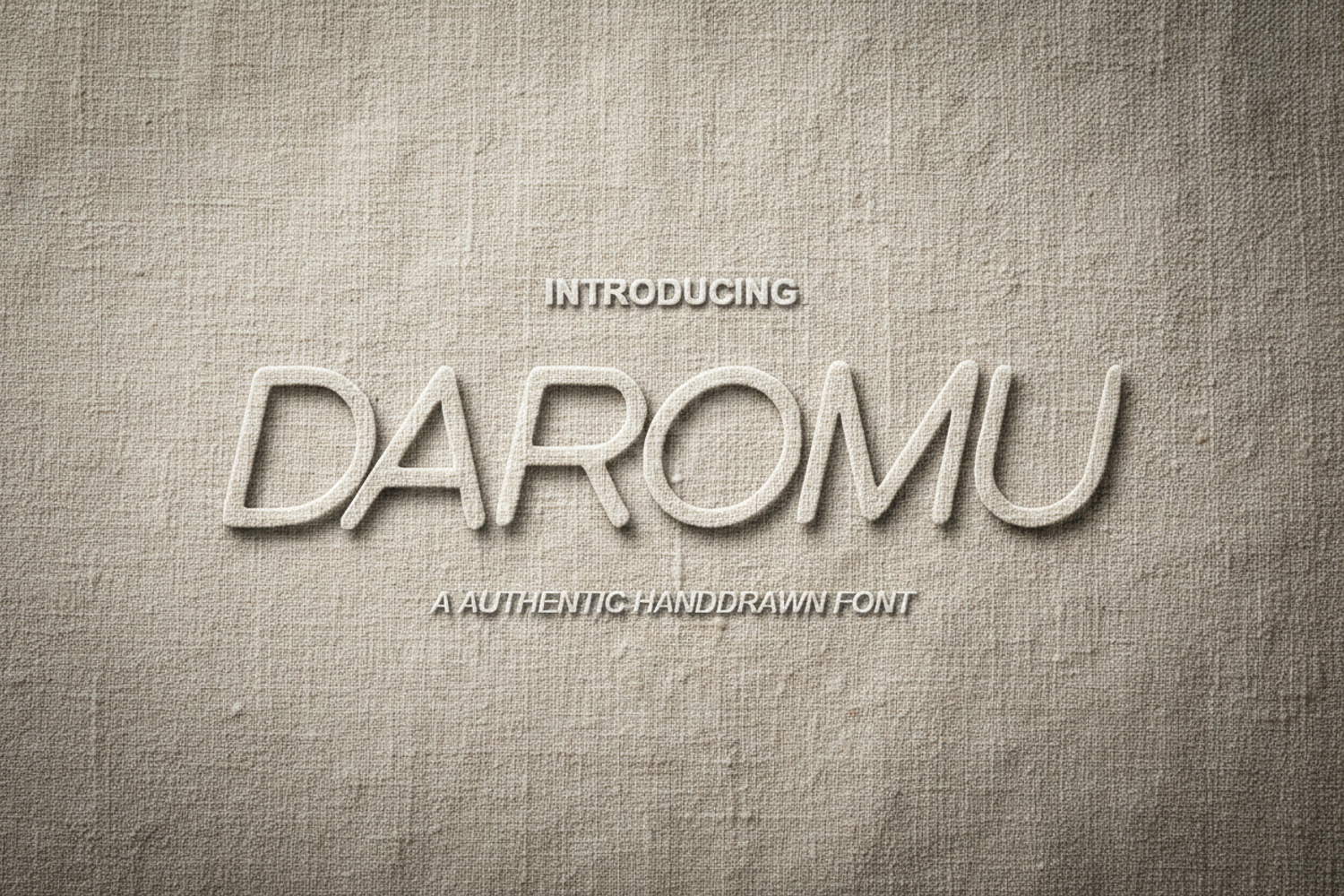
Daromu - Sophisticated Modern Serif Font
Daromu
Elevate your design projects with Daromu, a premium serif font that masterfully blends timeless elegance with contemporary flair. Meticulously crafted for designers who demand excellence, Daromu offers a sophisticated aesthetic that brings a touch of luxury to any creative canvas. Its balanced proportions and clean lines ensure maximum readability while maintaining a unique, high-end character.
- Comprehensive set of standard glyphs
- Elegant ligatures and alternative characters for custom styling
- Multi-language support for global reach
- Luxury Branding and Identity: Create memorable logos that exude professional prestige.
- Editorial Design: Perfect for magazine headers, book covers, and high-end layouts.
- Wedding and Event Stationery: Add a touch of class to invitations, menus, and place cards.
- Digital Marketing: Enhance social media graphics and website headers with clean typography.
- Product Packaging: Ideal for fashion, beauty, and lifestyle product labels.